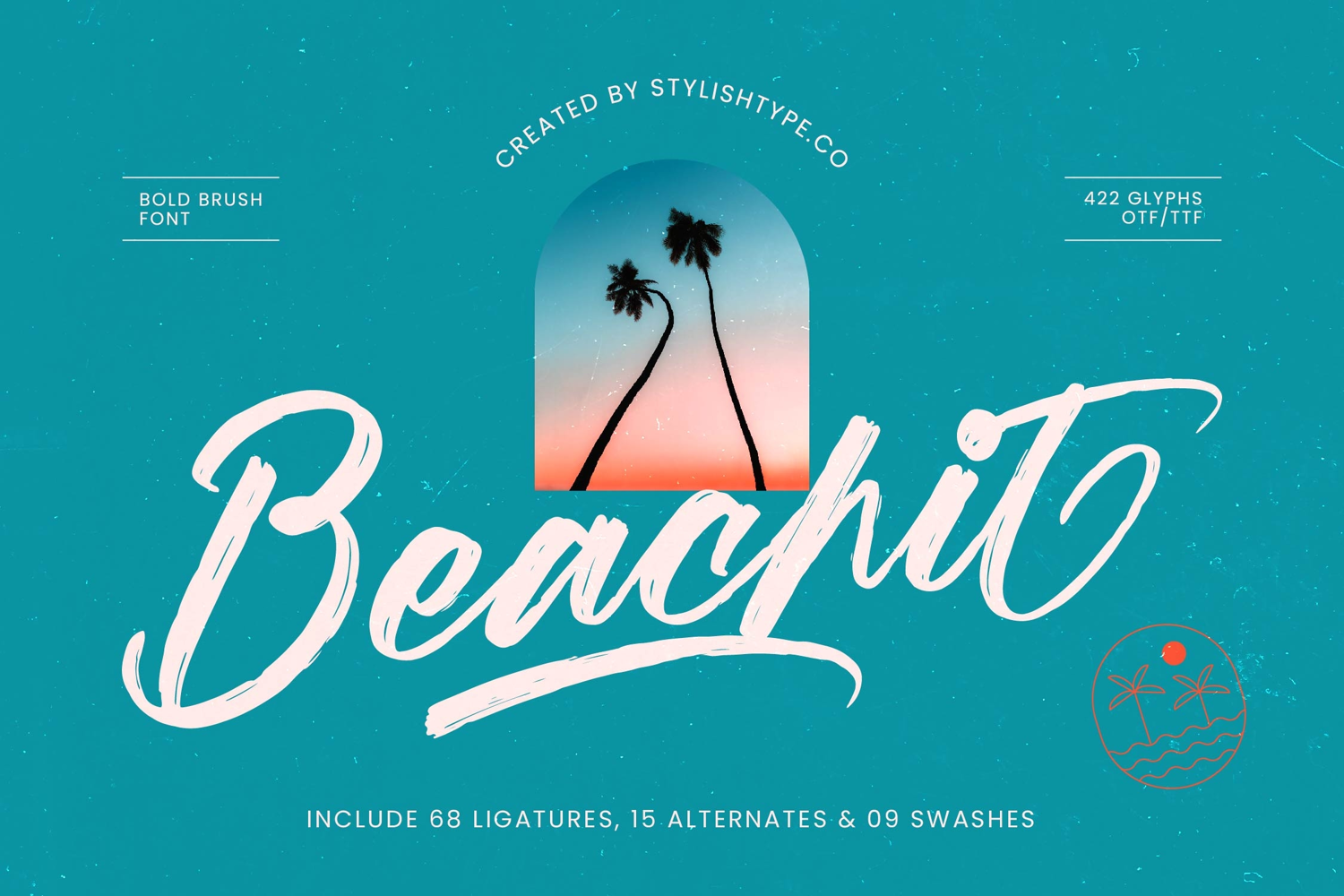
Beachit - Bold Brush Font
Beachit Italic
Beachit
Beachit - Bold Brush Font. This dynamic typeface captures the essence of hand-painted craftsmanship, delivering raw texture and expressive movement to any design. Its thick, flowing strokes and high-energy connections establish an immediate and captivating focal point, ensuring your message is both seen and felt. This font is a foundational asset for designers seeking a truly organic and expressive script solution.